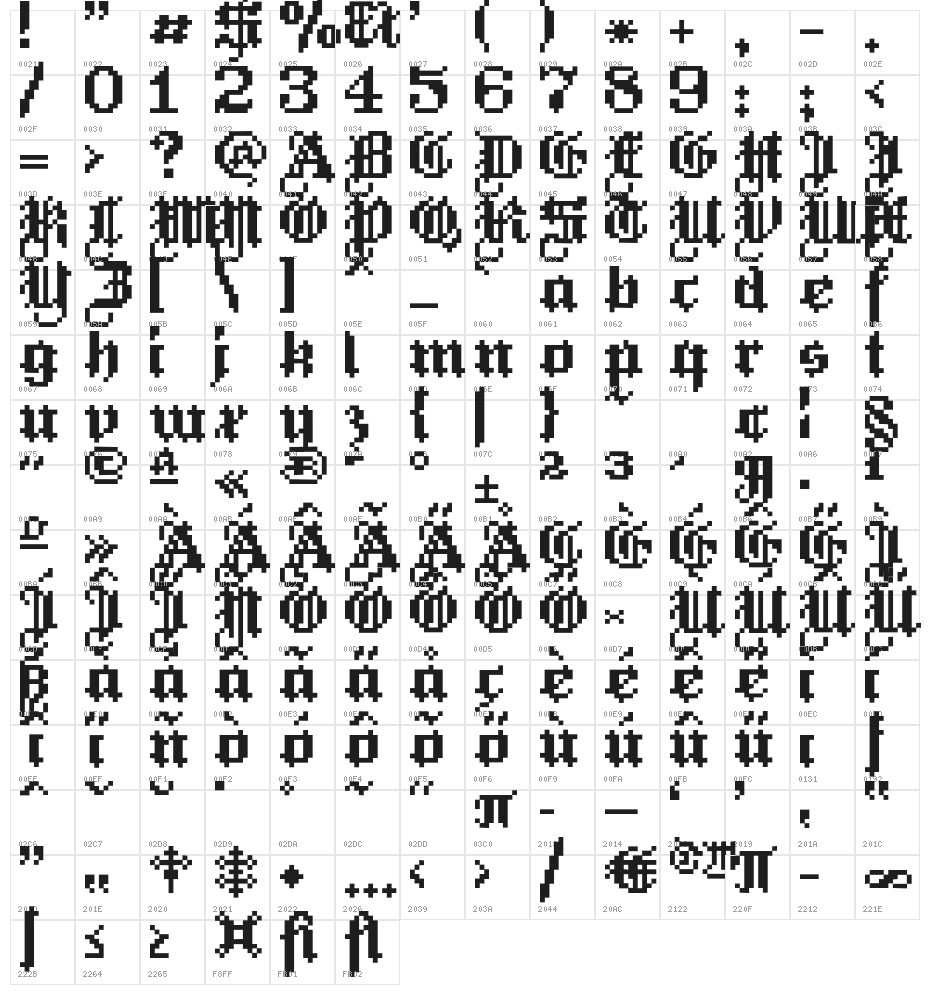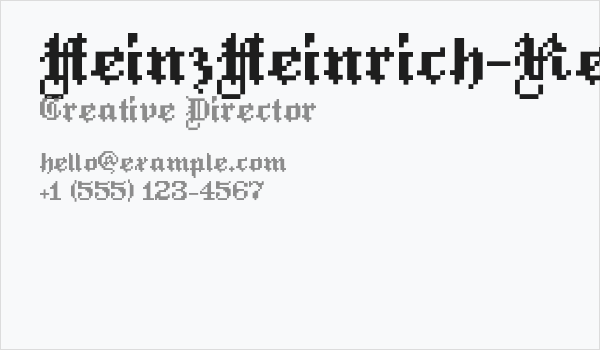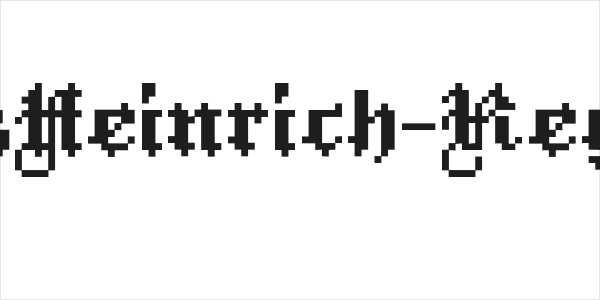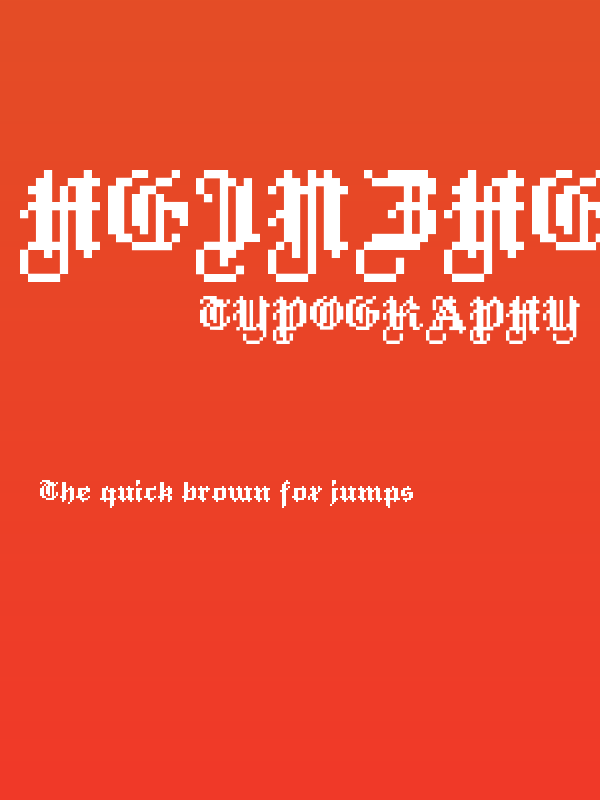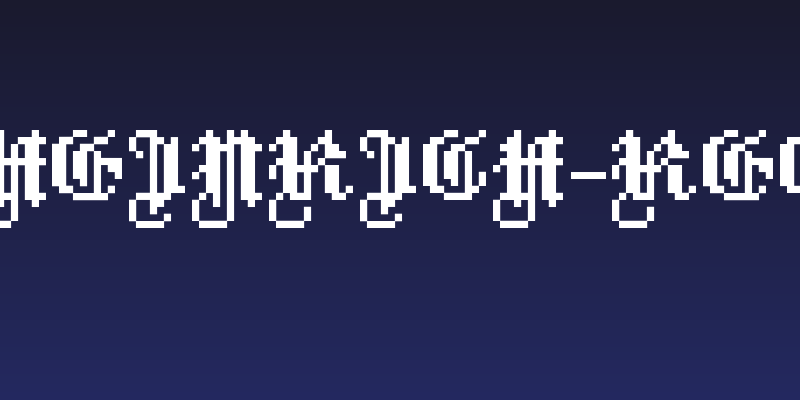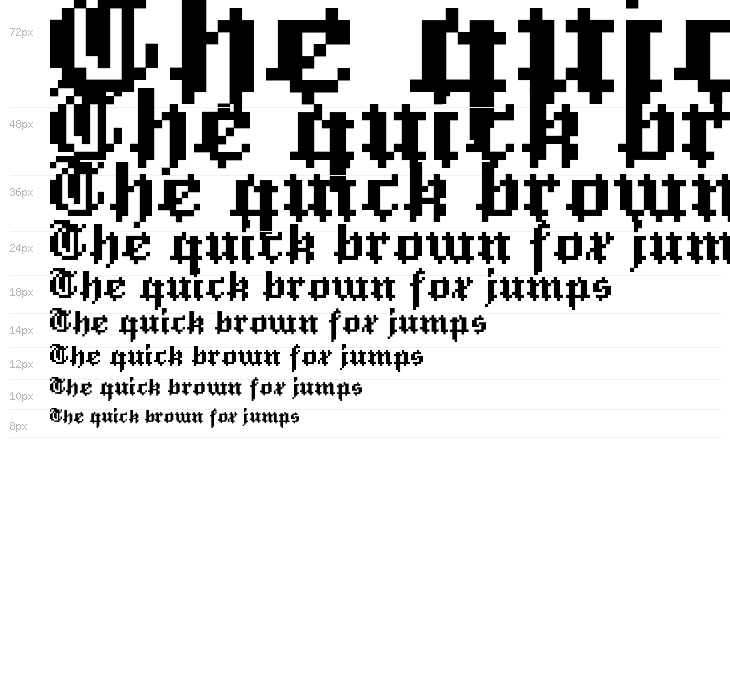
HeinzHeinrich-Regular Font
HeinzHeinrich-Regular Description
This font features a distinct blackletter style with bold, angular strokes and intricate detailing. The uppercase letters are ornate, with sharp edges and a medieval aesthetic. The lowercase characters maintain the same decorative style, offering a cohesive look throughout. The numerals are equally bold and stylized, fitting seamlessly with the overall design. Special characters are included, maintaining the font's unique and historical appearance. This font is ideal for projects that require a touch of vintage or gothic flair, making it suitable for themed designs, posters, or branding that seeks to evoke a sense of tradition and elegance.
| Proposed Projects | Ideal for historical-themed designs, gothic posters, branding, and decorative purposes. |